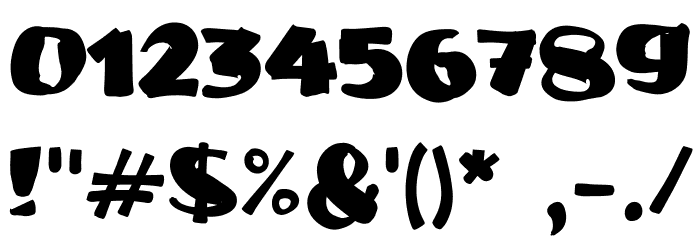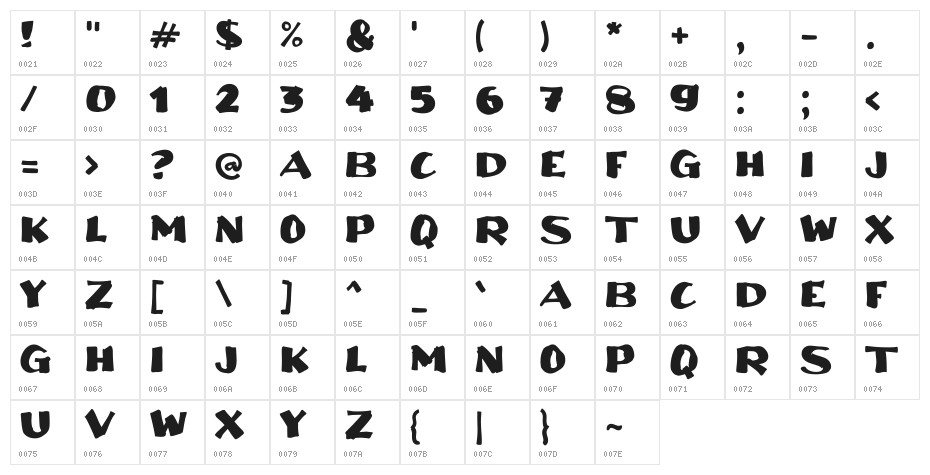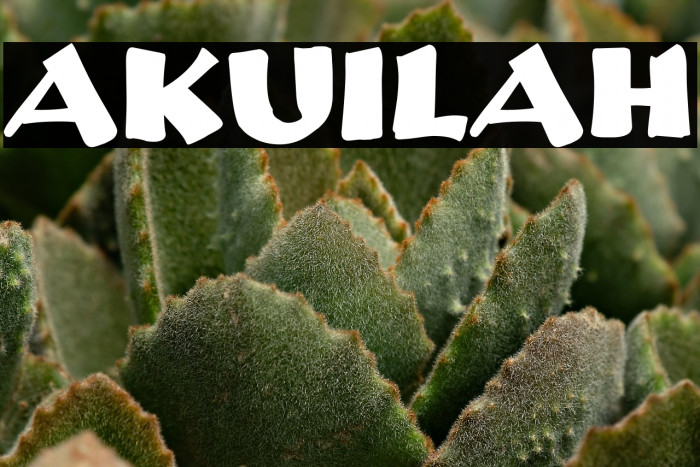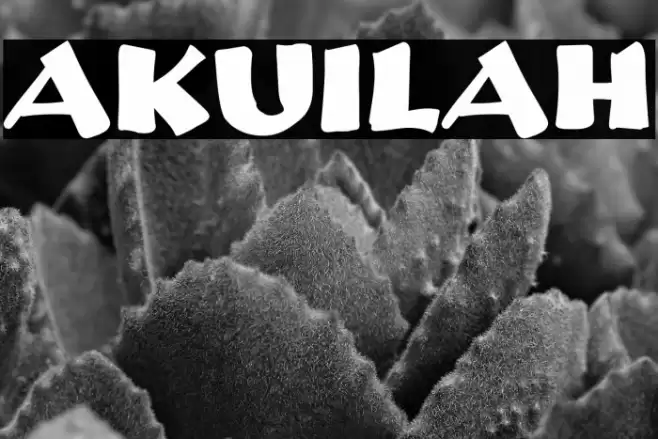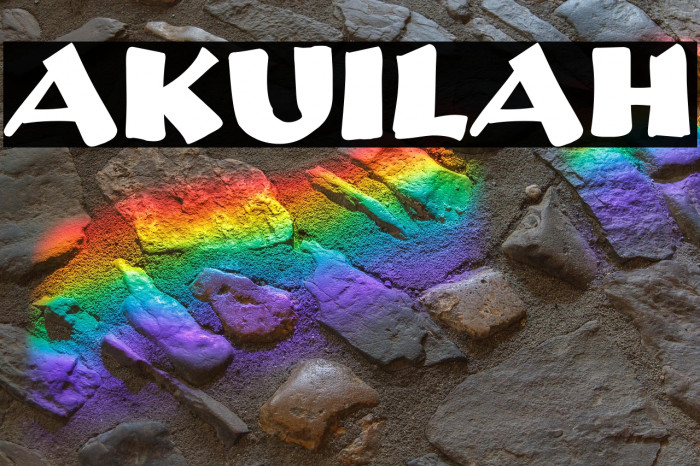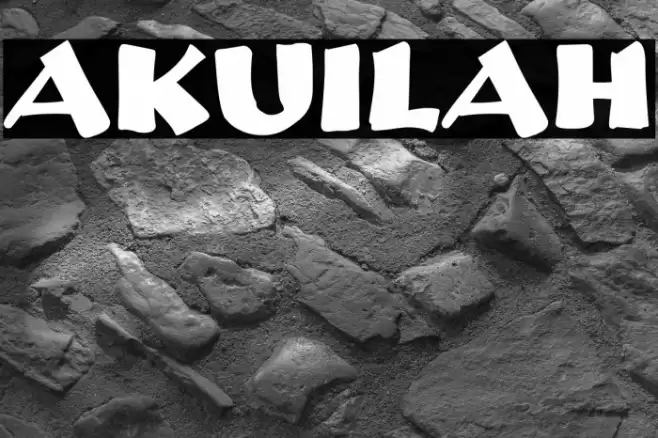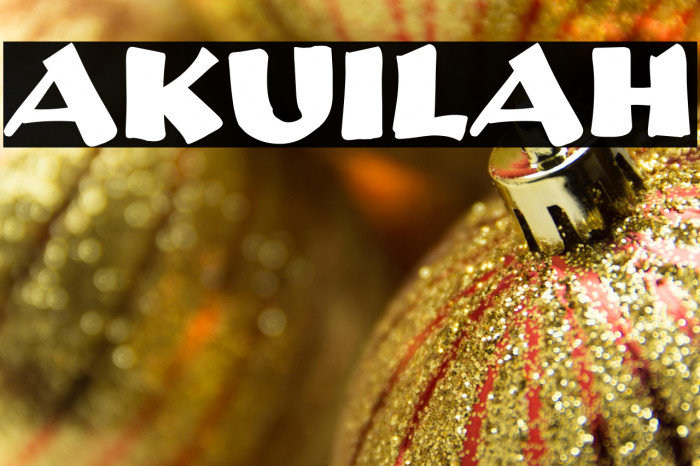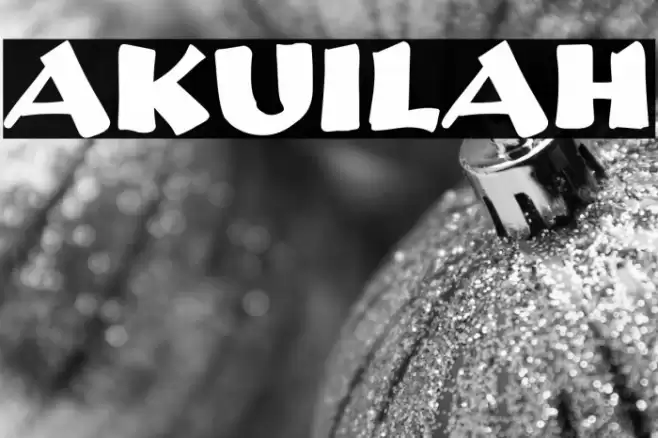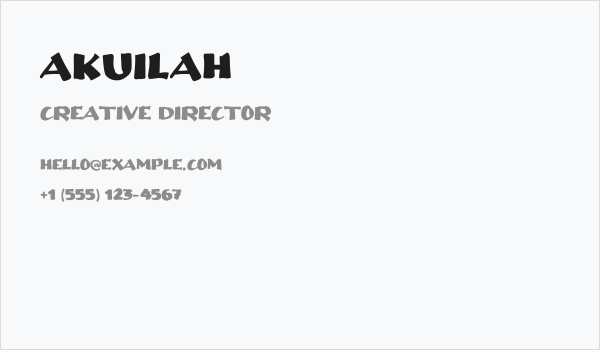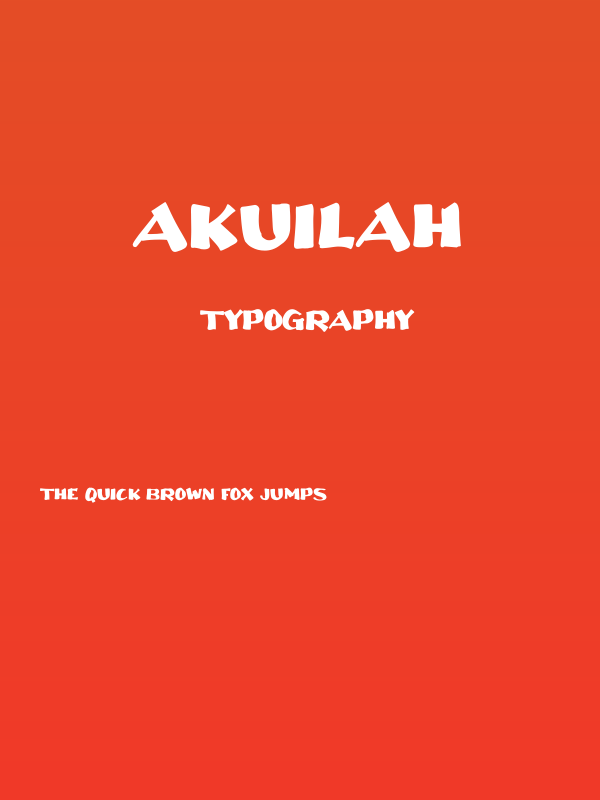
Akuilah Font
Akuilah Description
This font exhibits a bold and dynamic style with a strong presence. The characters are crafted with a thick, brush-like stroke that gives them a hand-painted appearance. The edges are slightly rough, adding to the organic and artistic feel. Each letter maintains a consistent weight, contributing to a cohesive look across the alphabet. The numbers and special characters follow the same design principles, ensuring uniformity throughout. This font is ideal for projects that require a bold statement and a touch of creativity.
| Proposed Projects | Ideal for posters, branding, packaging, and creative projects that require a bold and artistic touch. |